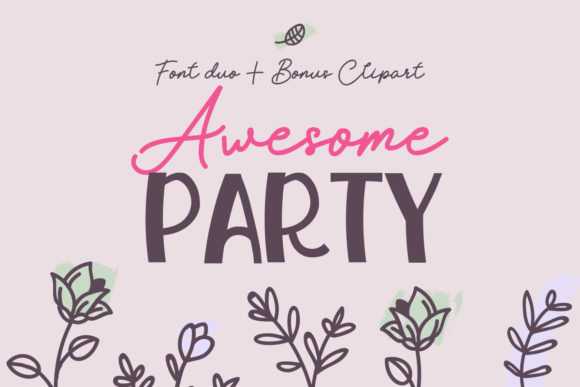
The Ultimate Party Font: Elevate Your Designs with Awesome Party
I’ll never forget the time I was working on a wedding invitation project, and my client asked for a font that was both elegant and playful. I scoured the internet, trying out font after font, but nothing seemed quite right. That was until I stumbled upon Awesome Party, a beautiful font duo that features a cute display font with a great script. In this article, I’ll share my experience with Awesome Party, and show you how to make the most of this amazing font.
An Honest Review of Awesome Party
So, what makes Awesome Party so special? Here are a few things I love about this font:
• ✨ Unique and eye-catching design: The combination of a display font and a script font is both stylish and versatile.
• ✅ Ease of use: The font is easy to read and works well in a variety of design projects, from branding to wedding designs.
• 🎉 OpenType features: Awesome Party comes with a range of OpenType features, including glyphs and stylistic alternates, that allow you to customize your text.
• 🤔 Limited kerning options: Some users may find that the kerning options are limited, which can make it tricky to get the perfect spacing.
• ⚠️ Not suitable for body text: Due to its decorative nature, Awesome Party is best used for headings and titles, rather than body text.
The Story Behind Awesome Party
Awesome Party was designed by a team of creatives who wanted to create a font that was both fun and elegant. The font was inspired by the idea of a party, with all its joy and celebration. The designers wanted to create a font that would capture the essence of a party, and make it easy for designers to add a touch of whimsy to their designs.
Q: What type of designs is Awesome Party best suited for?
A: Awesome Party is best suited for designs that need a touch of elegance and playfulness, such as wedding designs, invitations, and branding.
Q: Does Awesome Party come with OpenType features?
A: Yes, Awesome Party comes with a range of OpenType features, including glyphs and stylistic alternates.
Q: Is Awesome Party easy to read?
A: Awesome Party is designed to be easy to read, but it’s best used for headings and titles rather than body text.